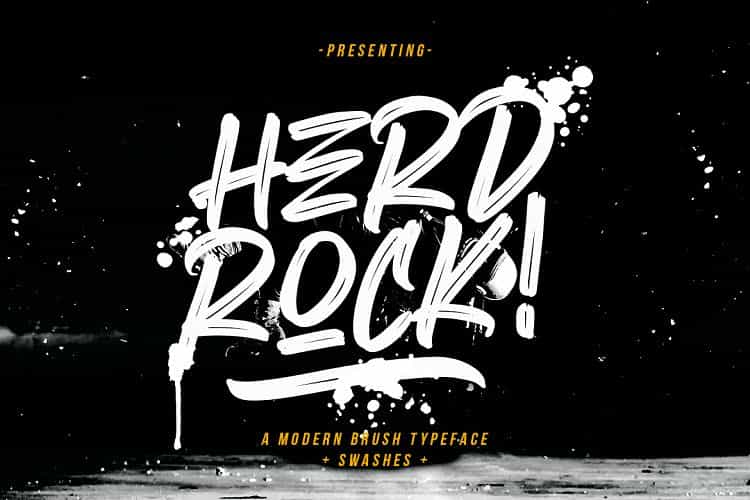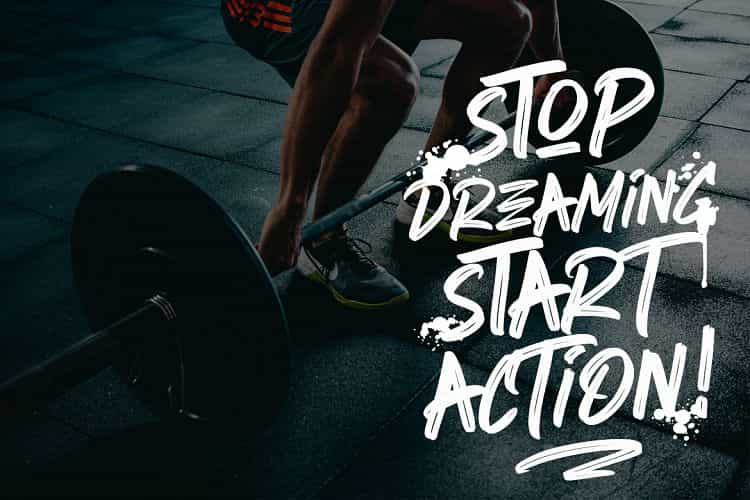
Discover Herdrock Brush Font, part of the Brush collection—a versatile and unique font perfect for adding a personal touch to your projects. Download it for free and enjoy crafting designs with style, from invitations to social media posts. This font is available exclusively for personal use, giving you the freedom to create without limits. Unlock your creativity with Herdrock Brush Font today!
Herdrock is supercharged brush font bursting with inline striping modern style, the natural style of this font will be perfect for branding projects, logo, wedding designs, social media posts, advertisements, product packaging, product designs, label, photography, watermark, invitation, stationery, and any projects that need handwriting taste.